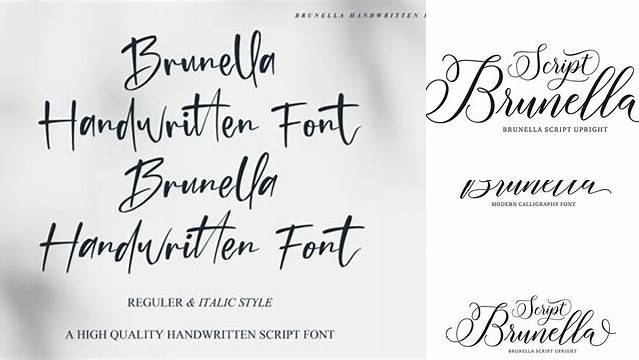
Brunella Script Font: Free Download & Usage Guide
Hey guys! Are you on the hunt for that perfect script font to add a touch of elegance and personality to your projects? Well, look no further! In this article, we're diving deep into the world of Brunella Script font, exploring everything from its stunning characteristics to where you can snag it for free. Get ready to elevate your designs with this beautiful typeface!
What Makes Brunella Script Font So Special?
Brunella Script isn't just another font; it's a work of art. This font exudes a sense of sophistication and charm, making it ideal for a wide range of creative endeavors. Its flowing lines and graceful curves give it a handwritten feel, perfect for adding a personal touch to invitations, logos, branding materials, and more.
One of the key aspects that make Brunella Script stand out is its versatility. Whether you're designing wedding invitations, crafting a logo for a boutique, or creating social media graphics, Brunella Script can adapt seamlessly. Its elegance isn't confined to formal settings; it can also lend a touch of class to more casual projects. Imagine using it for a blog header, a quote graphic, or even a t-shirt design. The possibilities are truly endless!
Another factor contributing to Brunella Script's allure is its legibility. While some script fonts can be challenging to read, Brunella Script strikes a beautiful balance between style and clarity. The letters are well-formed and spaced, ensuring that your message is conveyed clearly, even at smaller sizes. This is crucial, especially when using the font for body text or in designs where readability is paramount.
Furthermore, Brunella Script often comes with a range of stylistic alternates and ligatures, which enhance its aesthetic appeal and allow for even more customization. Ligatures are special characters that combine two or more letters into a single, flowing glyph, adding a touch of refinement and uniqueness to your typography. Stylistic alternates, on the other hand, provide variations for individual letters, giving you the flexibility to create a truly bespoke look. These features enable designers to fine-tune their typography, ensuring that the font perfectly complements the overall design.
In addition to its visual appeal, Brunella Script is also valued for its emotional impact. The flowing, handwritten style evokes feelings of warmth, authenticity, and personal connection. This makes it an excellent choice for projects that aim to create an emotional resonance with the audience. For instance, using Brunella Script in a thank-you card or a personalized gift item can convey a sense of sincerity and thoughtfulness. Similarly, in branding, it can help establish a brand identity that feels approachable and relatable.
In summary, Brunella Script's unique combination of elegance, versatility, legibility, and emotional depth makes it a highly sought-after font among designers and creatives. Its ability to adapt to various design contexts, coupled with its refined appearance, ensures that it remains a timeless choice for a wide range of projects. Whether you're aiming to create a classic, sophisticated look or a more contemporary, personal feel, Brunella Script provides the perfect foundation for your typographic endeavors.